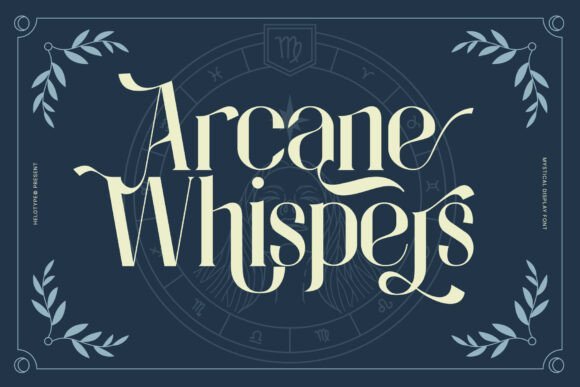
Unlock the Magic in Your Designs
Have you ever stared at a blank page, longing for the perfect font to bring your creative vision to life? As designers, we’ve all been there. Sometimes, it’s the subtle details that make all the difference – the perfect balance of elegance and whimsy, the right amount of sophistication and charm. That’s where the Arcane Whispers Font comes in, a captivating typeface that weaves together timeless serifs with mystical flair.
This enchanting font is not just a pretty face; it’s a powerful tool for designers who want to add a touch of magic to their work. With its intricate ligatures and magical swashes, Arcane Whispers Font is perfect for projects that demand a whisper of wonder – from branding and invitations to book covers and product packaging.
Arcane Whispers Font Key Features
- Unique Characteristics: Arcane Whispers Font features intricate, hand-drawn designs with mystical and mystical elements, making it ideal for fantasy, horror, and mystery-themed projects.
- Font Style: Arcane Whispers Font is available in Regular, Italic, Bold, and Bold Italic styles, providing designers with flexibility to create different moods and atmospheres.
Designer Review: Arcane Whispers Font
Overall, I have mixed feelings about the Arcane Whispers Font. It’s a beautiful font with some amazing characteristics that make it stand out, but it also has some limitations that might make it less desirable for certain projects.
- The font has a unique and mystical feel to it, making it perfect for projects that require a touch of magic or fantasy.
- The curves and lines are well-balanced, creating a sense of harmony and visual appeal.
- The font is highly legible, even at smaller font sizes, making it suitable for body text and headings.
Limitsations ⚠️
- The font lacks versatility, making it less suitable for projects that require a modern or minimalist aesthetic.
- The font is not ideal for large-scale headings or titles, as the lines can become too thin and lose their impact.
- The font’s magical feel can be overwhelming in certain contexts, making it less suitable for projects that require a more subtle or understated design.
The Arcane Whispers Font is a beautiful and unique addition to any font collection. While it has its limitations, it’s perfect for projects that require a touch of magic and fantasy. With some careful consideration and planning, this font can be a valuable asset in the right design context.
To get the most out of Arcane Whispers Font, try the following:
– Use it sparingly to create a sense of mystery and intrigue.
– Pair it with bold, contrasting colors to create visual interest.
– Experiment with different font sizes and styles to create a unique look.
Some common use cases for Arcane Whispers Font include:
– Fantasy and science fiction book covers and marketing materials.
– Video game and animation titles and credits.
– Mystical and spiritual websites and social media graphics.